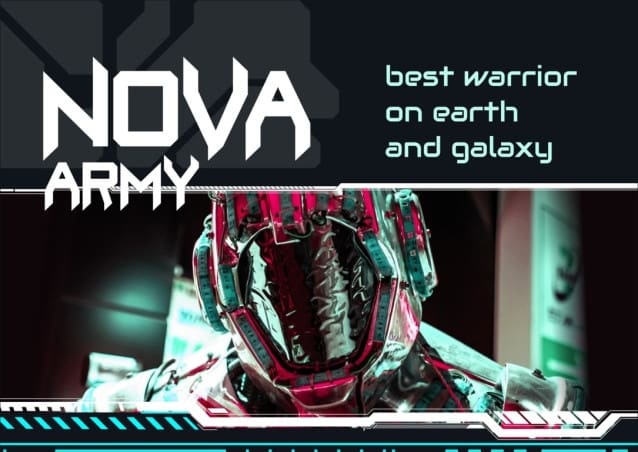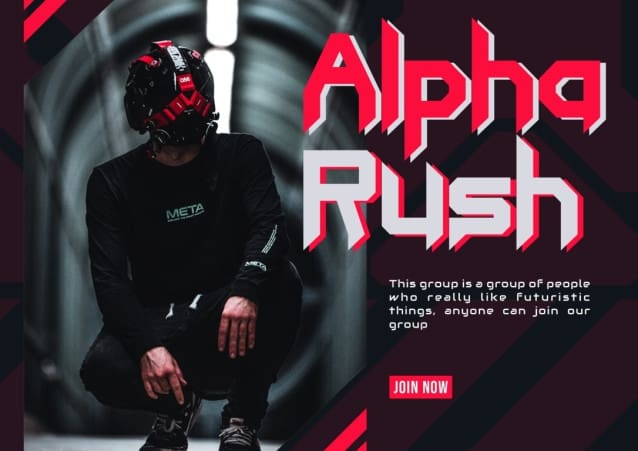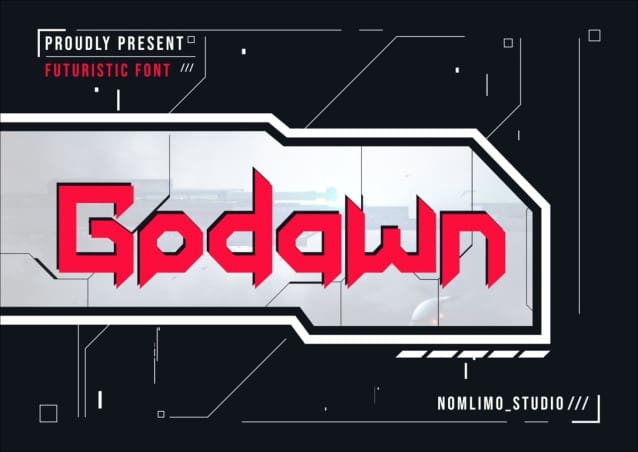
Godawn Futuristic Font
Godawn Futuristic Font, a cutting-edge font that draws inspiration from the captivating world of cyberpunk fiction found in movies and books. With its slightly sharp edges and modern outline style, Godawn exudes a futuristic and elegant aura. This versatile typeface is well-suited for a wide range of purposes, including movies, posters, logos, labels, and any project that requires a modern touch.